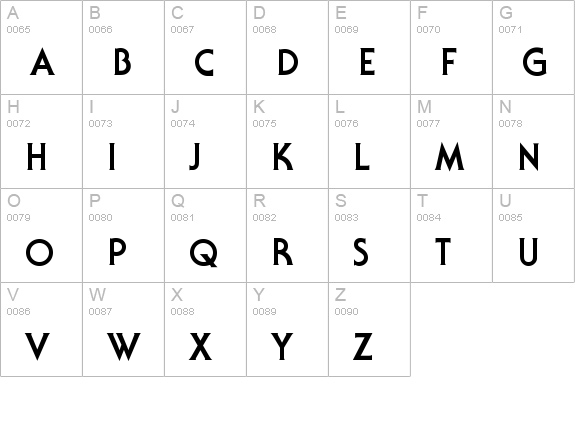
SerifGothicEF-ExtraBold Font Details
SerifGothicEF-ExtraBold is an extra-heavy, attention-grabbing variant in the SerifGothicEF typeface family \xE2\x80\x94 well suited to high-impact headlines, posters, and bold branding.
SerifGothicEF-ExtraBold font is a stunning display typeface that exudes power, confidence, and a touch of elegance. Its bold, commanding strokes make a strong statement, capturing attention and leaving a lasting impression. This font is perfect for headlines, logos, posters, and any design project that requires a bold and impactful typography. What makes SerifGothicEF-ExtraBold even more remarkable is that it is free. That's right, this incredible font is freely available to download at FontsMarket.com. Now you can elevate your designs without breaking the bank. Whether you're a professional designer or a hobbyist, this font is a must-have in your collection. With its timeless appeal and versatility, SerifGothicEF-ExtraBold font can be used in a wide range of design styles, from classic to modern, from corporate to artistic. Its clean and sharp lines give it a sophisticated and refined look, while its extra bold weight adds a contemporary edge. The characters in SerifGothicEF-ExtraBold font are meticulously crafted, ensuring excellent legibility even at smaller sizes. Each letter is beautifully balanced, creating a harmonious and cohesive visual experience. Whether used in large or small sizes, this font retains its impact and readability. SerifGothicEF-ExtraBold font is not only visually stunning, but it also offers great versatility in terms of language support. It includes an extensive range of characters, symbols, and punctuation marks, making it suitable for multilingual projects. So, why wait? Experience the power and elegance of SerifGothicEF-ExtraBold font today and download it for free at FontsMarket.com. Enhance your designs, captivate your audience, and make a lasting impression with this extraordinary font.